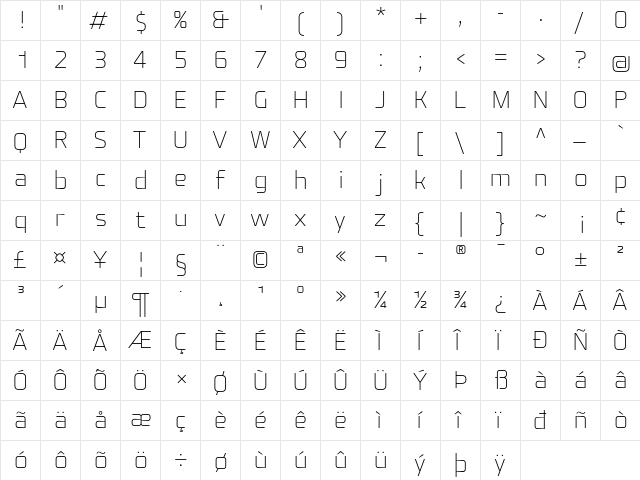
Fishmonger EET Plain
| Foundry | Tomas Brousil |
Design Context for Fishmonger EET Typeface
Fishmonger EET takes a measured approach to typography — its balanced proportions and neutral character make it a reliable workhorse for both digital and print work.